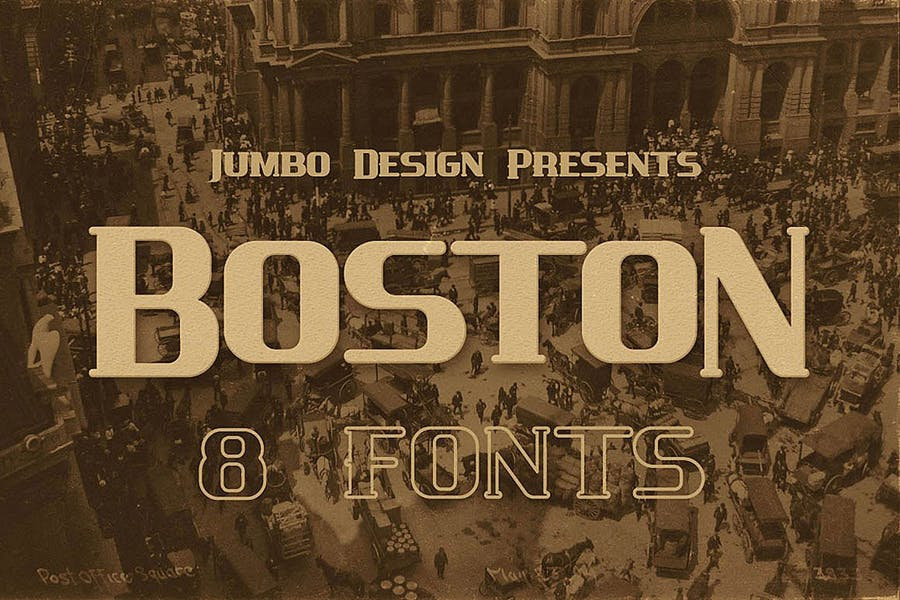
Boston - Vintage Style Font
Boston Vintage Style Font is perfect for American heritage branding, New England restaurant signage, historical institution marketing, traditional university communications, colonial-themed tourism, heritage brewery logos, patriotic event graphics, and classic American lifestyle campaigns.
What makes Boston Vintage Style Font exciting is its patriotic heritage that captures the foundational spirit and revolutionary character of American history with colonial authenticity and traditional strength. The font features distinguished letterforms with historical proportions and colonial character that evoke founding documents, brick buildings, and the enduring legacy of American independence and democratic ideals. Its distinctive American styling and patriotic appeal communicate tradition, liberty, and historical significance, making every message feel grounded in American heritage and blessed by the founding principles of freedom and democratic tradition.
The Boston Vintage Style Font family includes regular weight with uppercase and lowercase letters, numerals, punctuation marks, and special characters. Premium versions often feature historical alternates and patriotic elements that enhance the colonial, American aesthetic perfect for heritage and educational applications.
This distinguished patriotic typeface brings instant authenticity and historical credibility to any American heritage project. Boston Vintage Style Font Free Download delivers exceptional results for educational institutions and heritage organizations seeking to communicate American tradition, historical significance, and patriotic values to audiences interested in American history and democratic heritage.
The historical character of Boston Vintage Style Font makes it particularly valuable for historical museums, educational institutions, and American heritage tourism businesses. Its excellent readability ensures historical information and patriotic messaging remain clear while maintaining the distinctive colonial aesthetic that appeals to audiences seeking authentic American historical experiences and democratic education.
Heritage educators and patriotic marketers appreciate how Boston Vintage Style Font effortlessly conveys American authenticity and historical depth. The font's distinguished proportions and colonial details create trustworthy educational materials that establish connections with audiences who value American history, democratic principles, and the foundational heritage of American independence and constitutional government.
The versatile heritage of this typeface extends to patriotic organizations, American history education, and constitutional advocacy where colonial authenticity enhances educational credibility and patriotic appeal. Boston Vintage Style Font Free Download provides creative professionals with an essential tool for developing memorable, heritage-driven designs that resonate with audiences who embrace American history, democratic values, and the distinguished legacy of colonial American heritage in their educational and patriotic experiences.